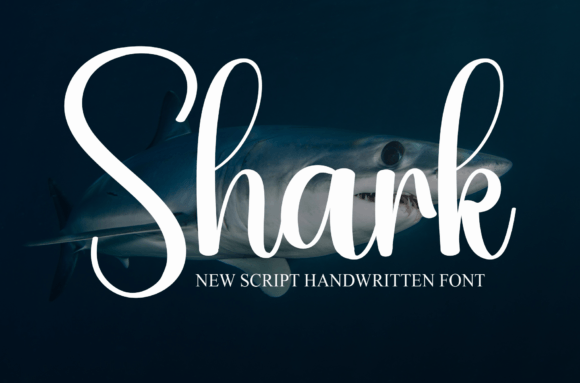
Looking for the perfect font to elevate your T-shirt design game? Look no further than Shark Font! This script font, created by the talented William Jhordy, is the ideal choice for adding a touch of fun and friendliness to your designs.
With its sweet and friendly handwritten style, Shark Font is the perfect choice for a variety of projects. Whether you're creating wedding invitations, greeting cards, or any other design that needs a fresh and neat look, Shark Font is sure to impress. And thanks to its versatility, this font can be used for a wide range of design projects.
What sets Shark Font apart from other fonts on the market is its unique combination of playful charm and elegant style. The flowing script letters are easy to read and instantly recognizable, making it an eye-catching choice for any project.